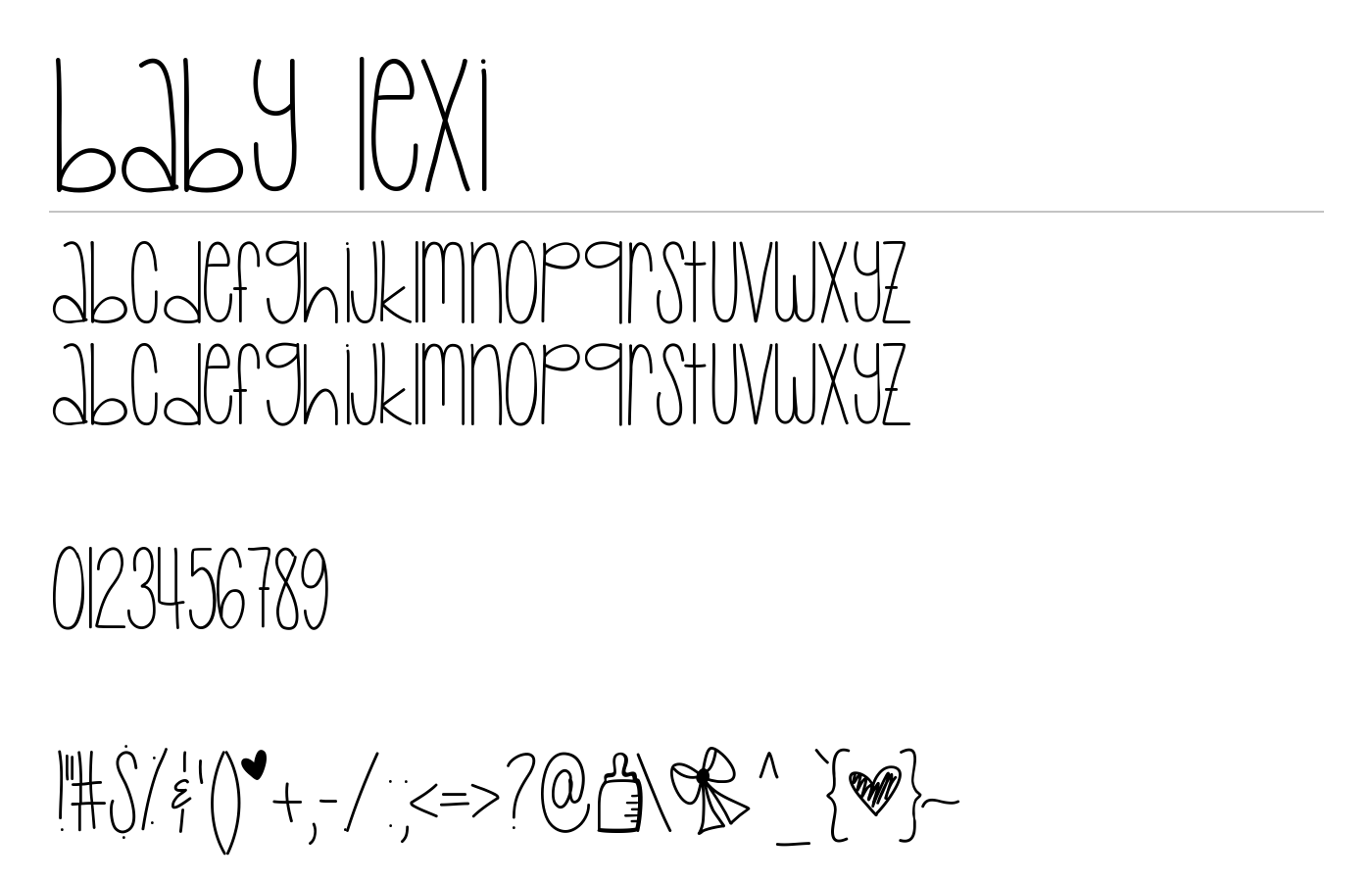
Baby Lexi is a playful and delicate handwritten sans serif font characterized by its tall, narrow letterforms with thin strokes and whimsical curves. Its light weight and airy spacing give it a friendly, charming feel that works beautifully for kids’ designs, casual branding, and invitations. This font’s approachable style adds a personal touch where a gentle, youthful vibe is desired.
Baby Lexi Font
About Baby Lexi Font